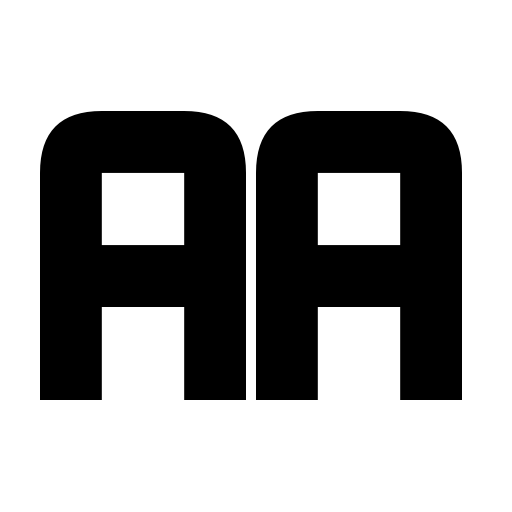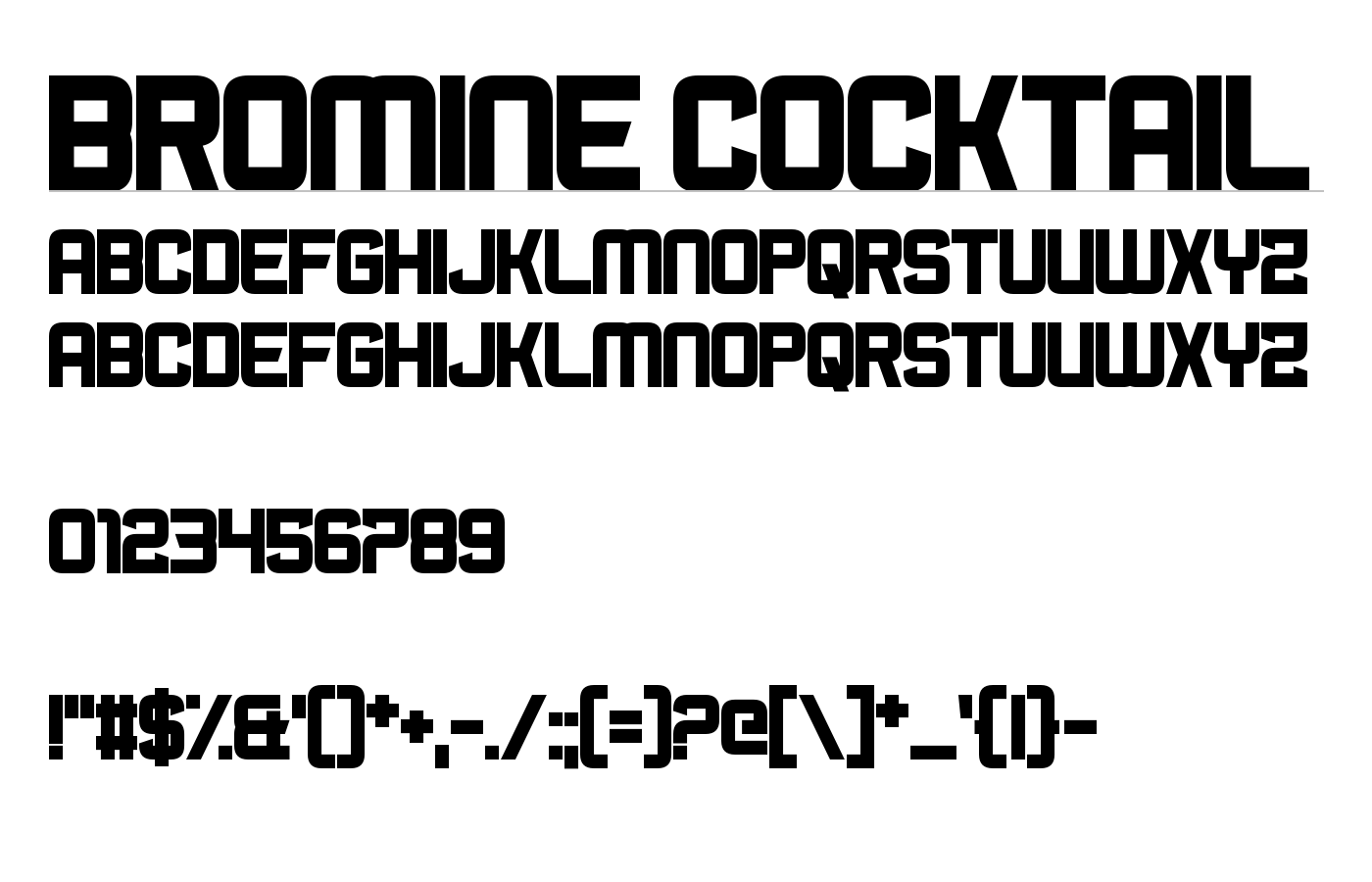
Bromine Cocktail is a bold, condensed sans serif font with a strong geometric structure and squared-off edges that give it a modern, industrial feel. Its uniform stroke weight and tight letter spacing make it perfect for impactful headlines, logos, and branding projects that want to convey strength and contemporary style. This font works especially well in urban, tech, or futuristic designs where clarity and a sleek, no-nonsense personality are essential.
Bromine Cocktail Font
About Bromine Cocktail Font